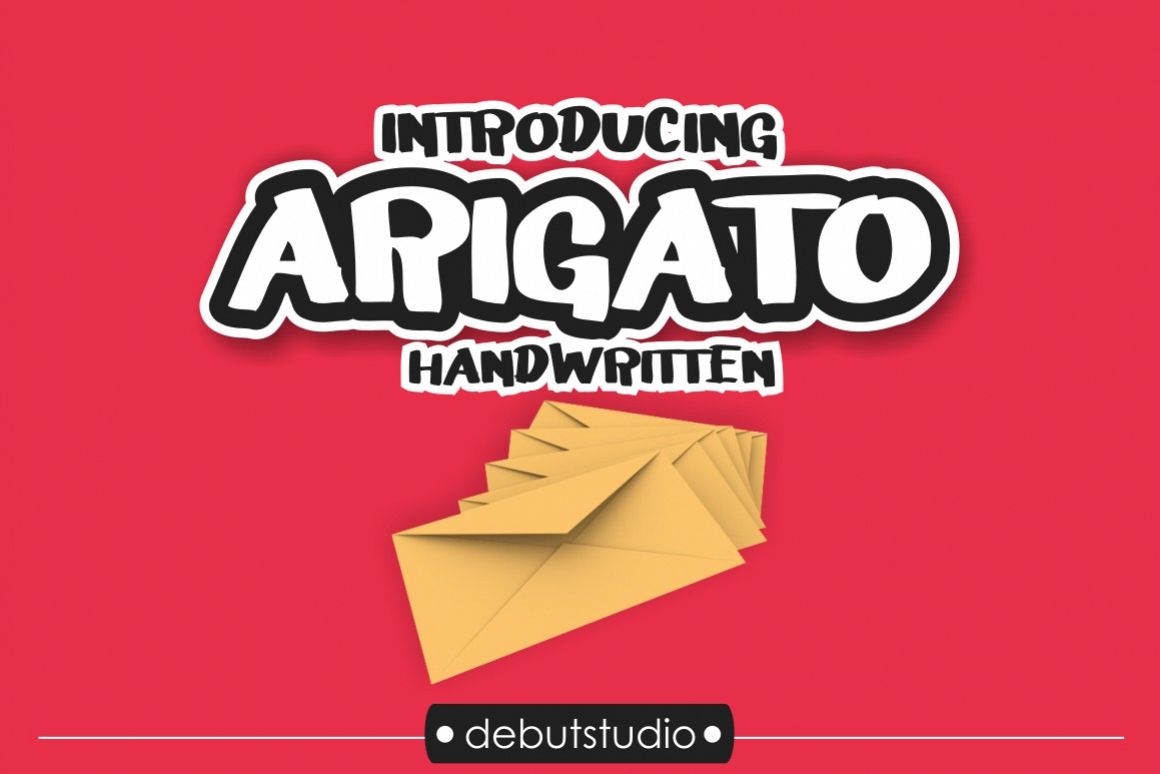
Arigato Handwritten Font
Arigato Handwritten
Introducing Arigato Handwritten Font
This font is my own handwriting when i write the text in envelope, i think this handwriting good for convert to font in my computer,
i really excited if you use that too
This font great on Uppercase, but i make that lowercase tooI hope you like, and enjoy